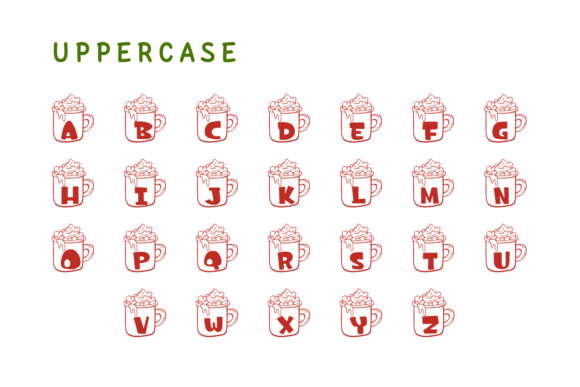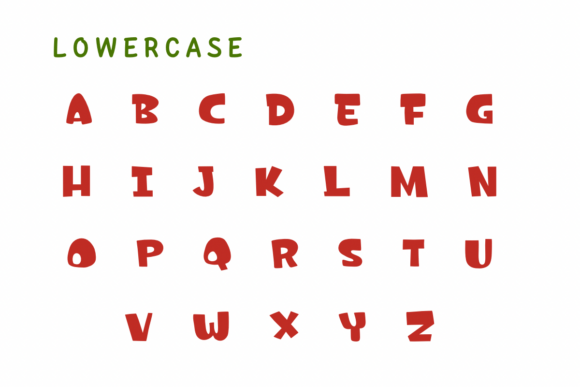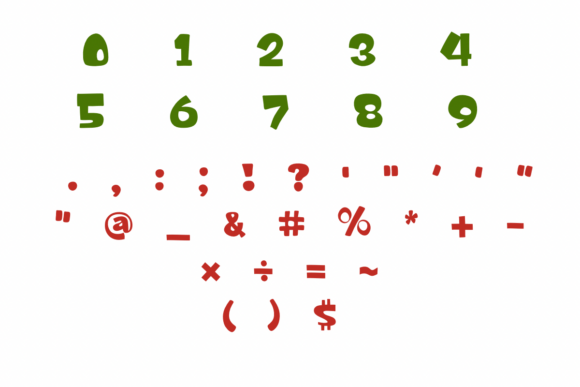
Introduction to Cup Christmas Font
Cup Christmas is a fun decorative font that features letters on cute Christmas mugs.
Each mug is colorful and festive, perfect for adding a cheerful touch to holiday designs .
Key Features of Cup Christmas Font